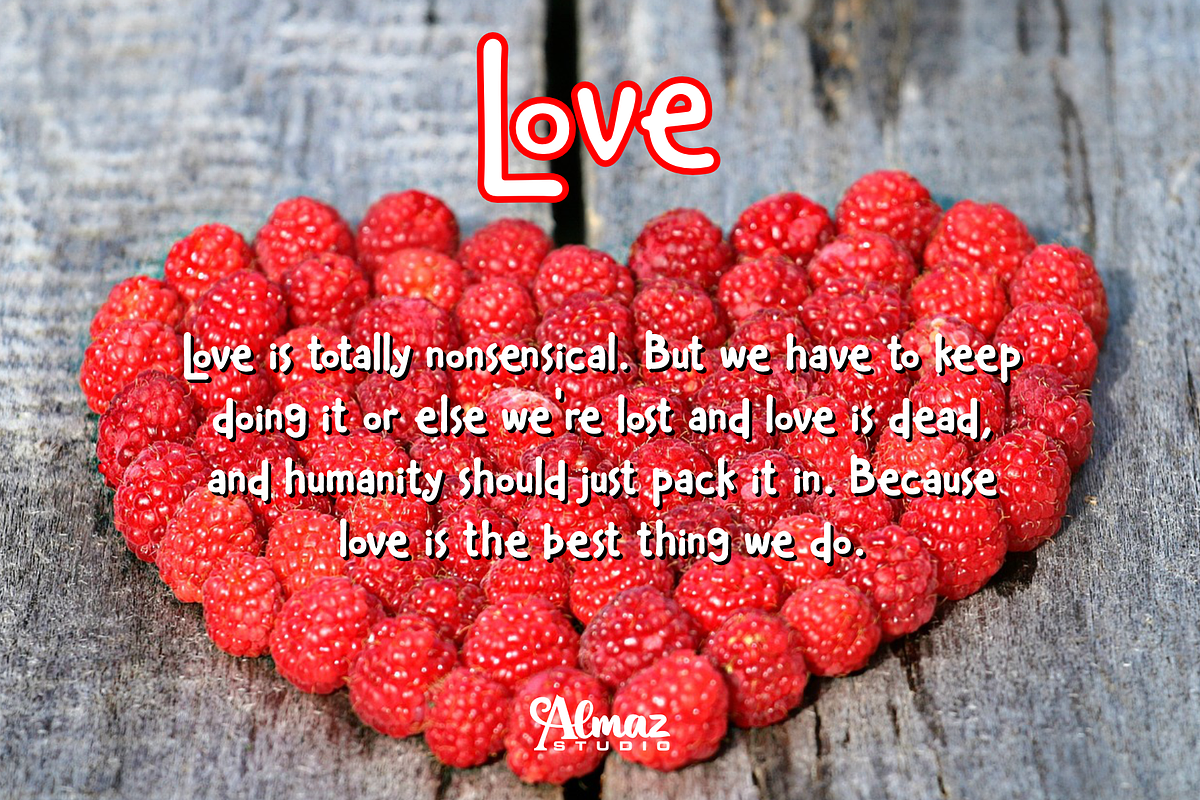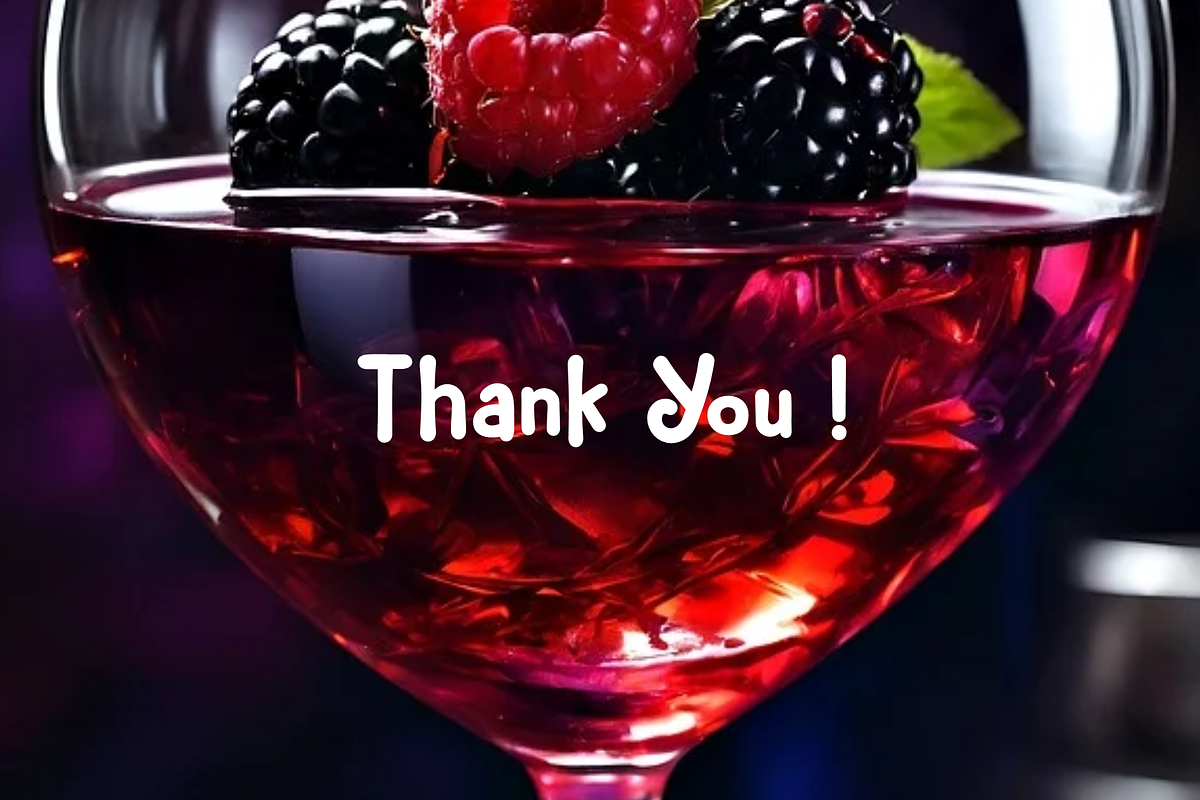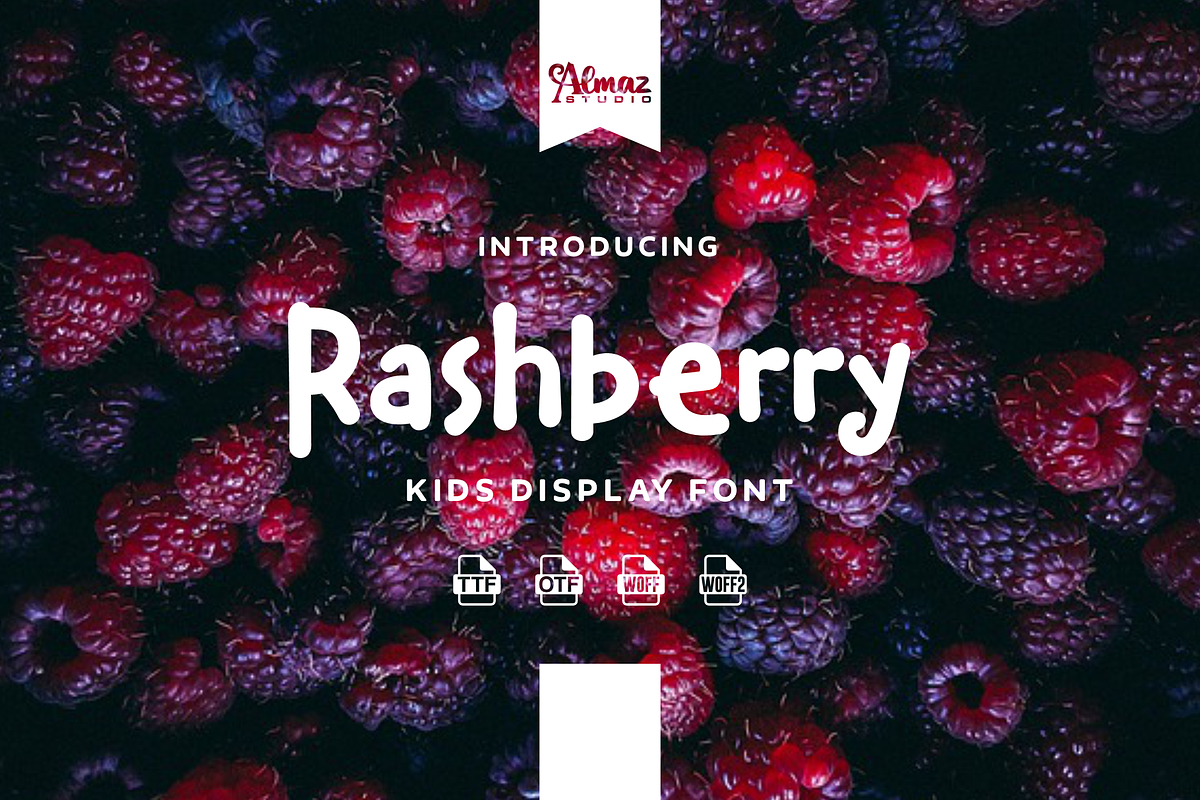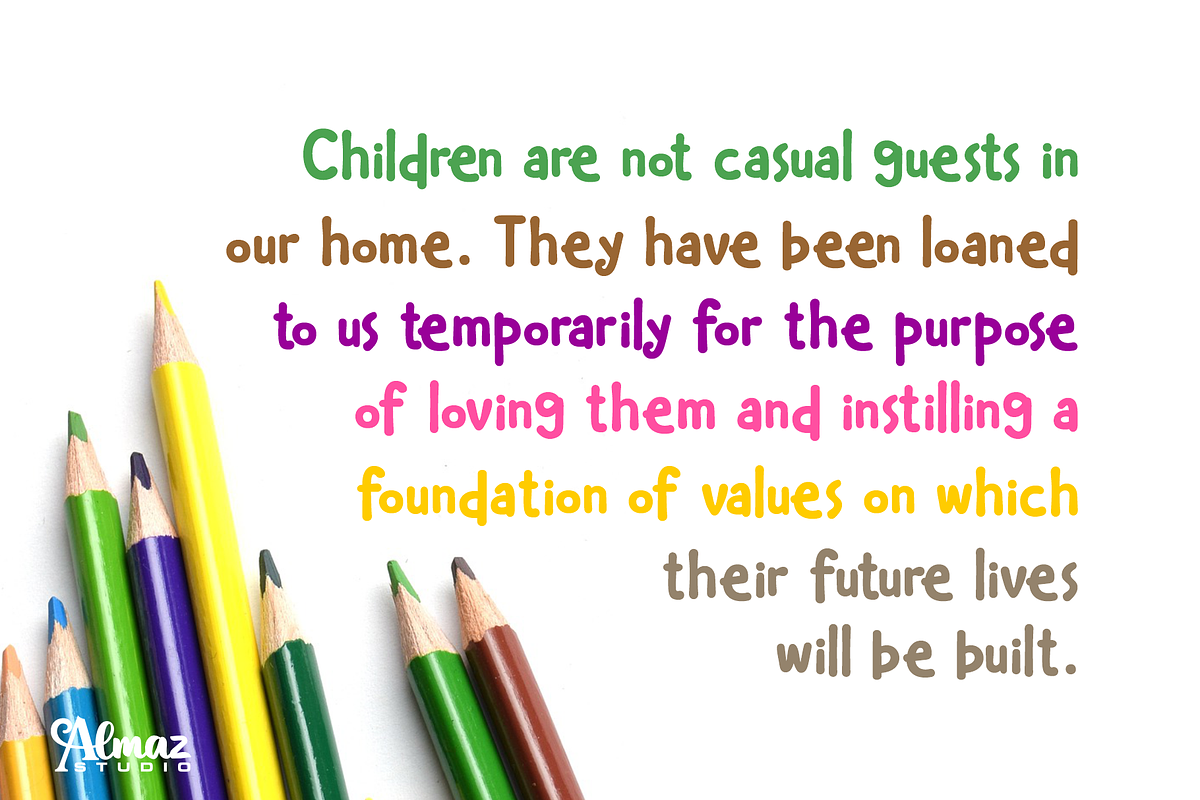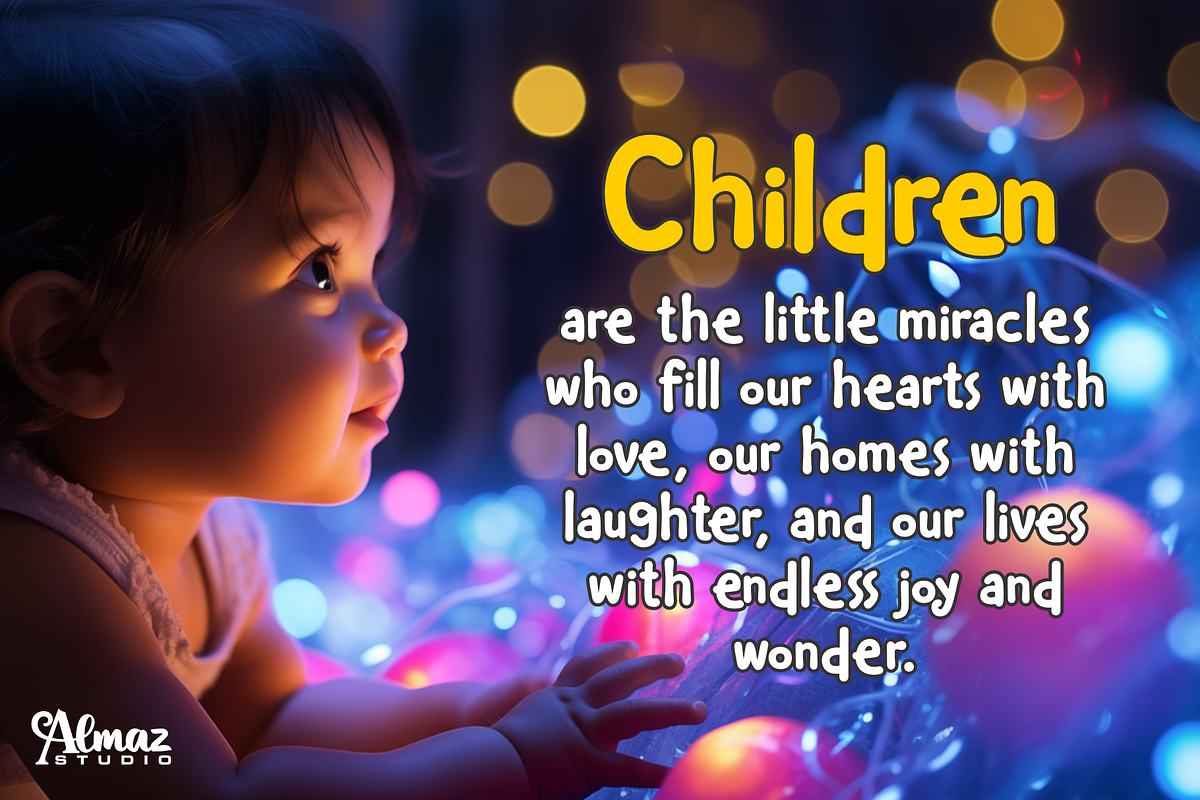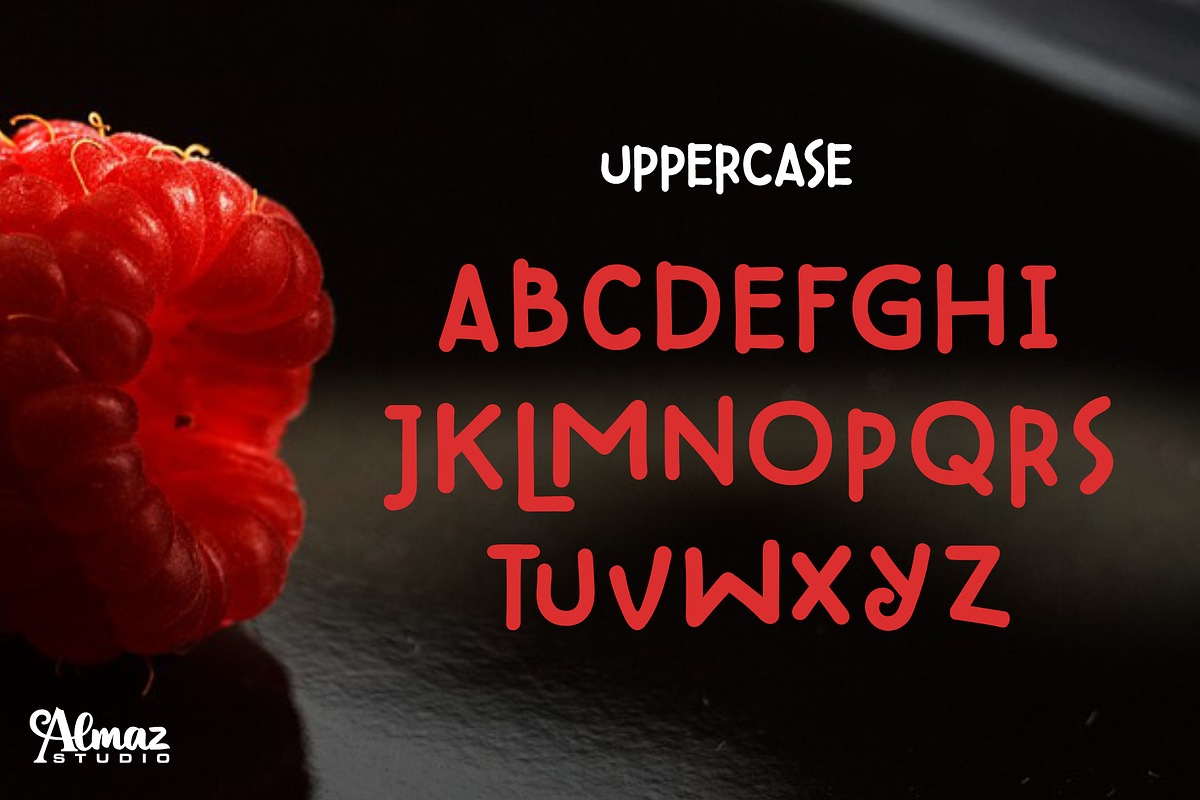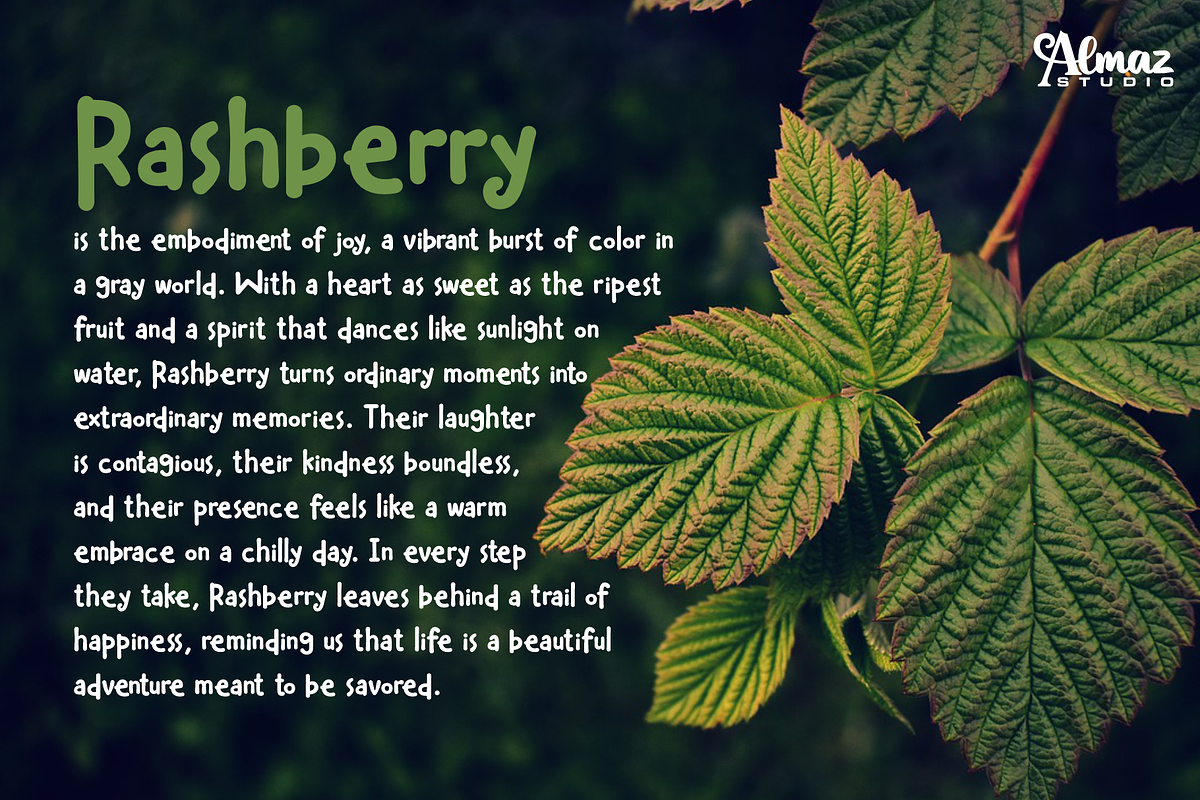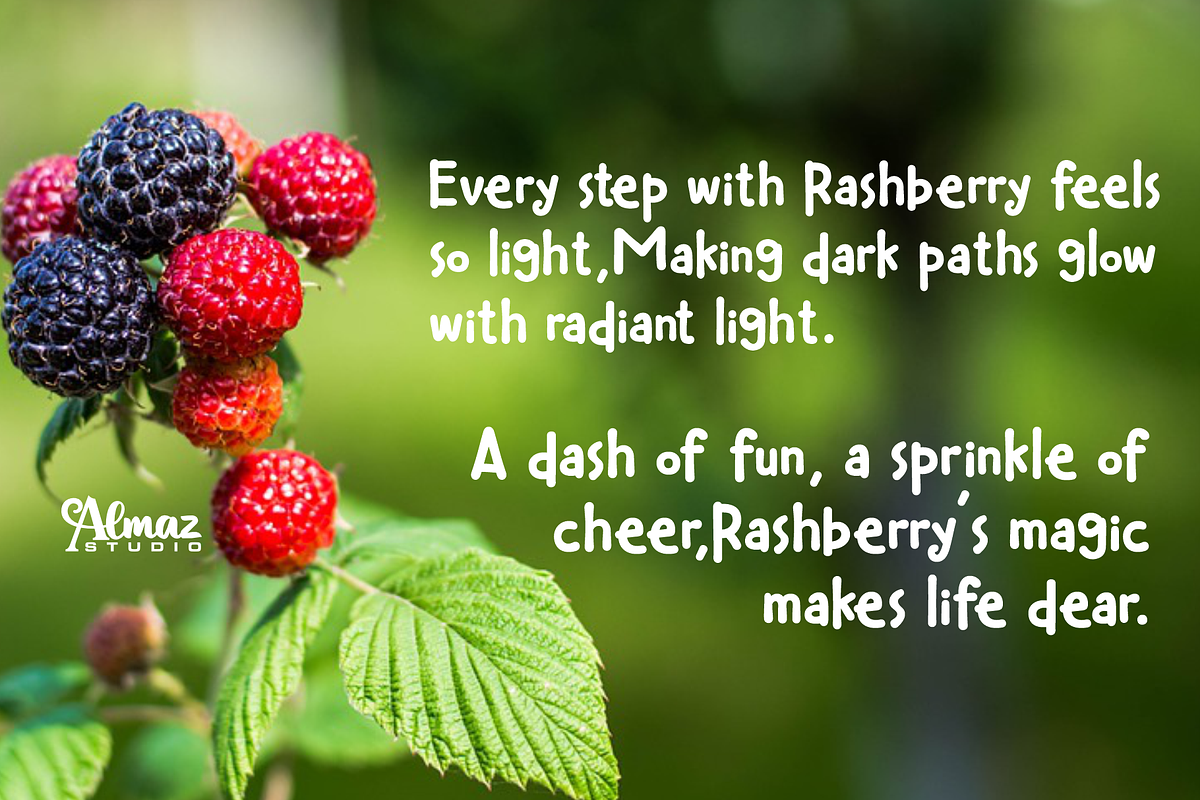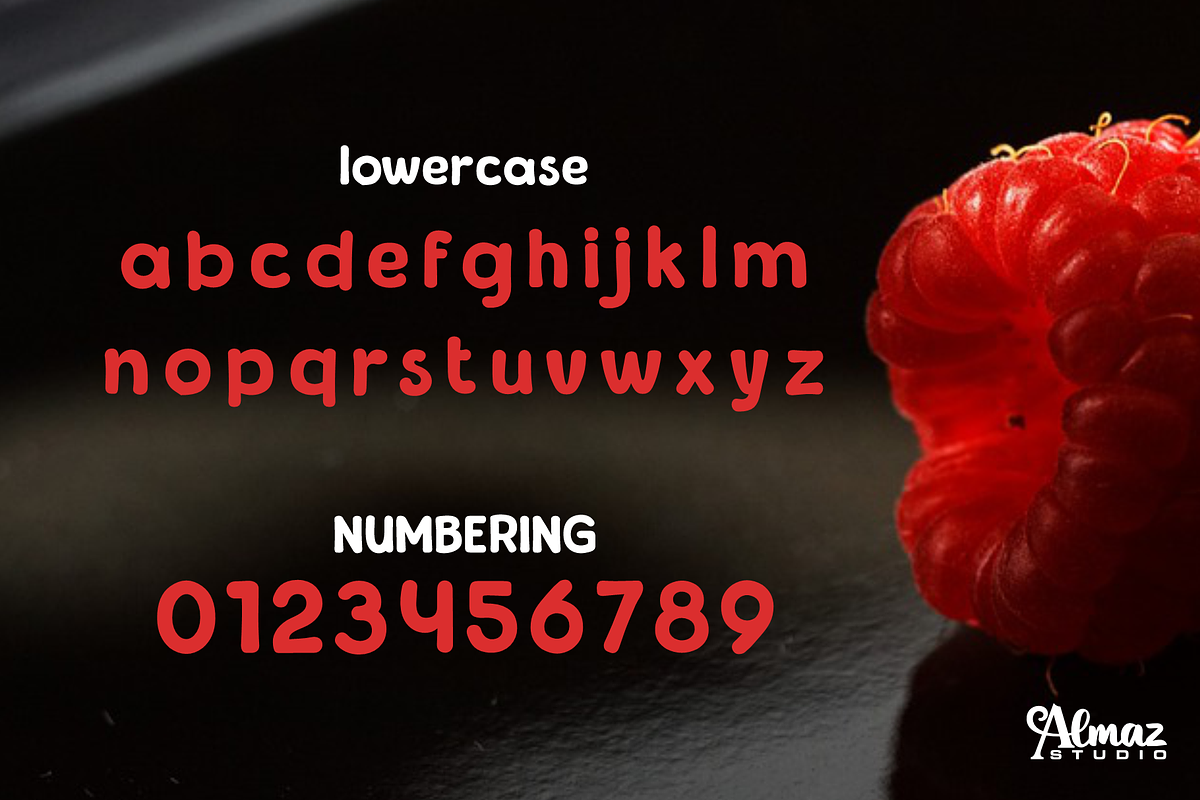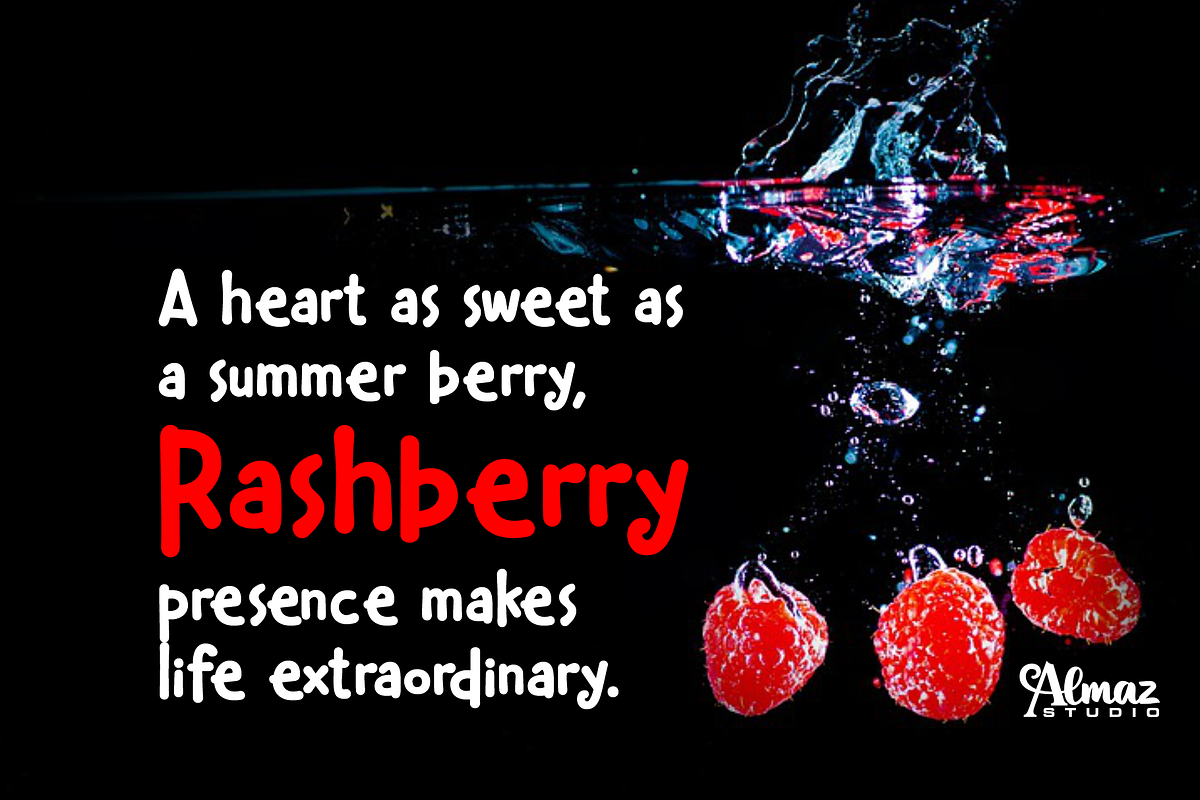
Rashberry
Rashberry is a sweet, cheerful kids’ display font that’s bursting with warmth and playfulness. With its rounded, soft, and slightly quirky letterforms, Rashberry brings a fun and friendly vibe to any design. Inspired by the fresh, colorful shapes of berries, this font is perfect for children’s products, food packaging, educational posters, storybooks, and branding that wants to feel playful yet easy to read.